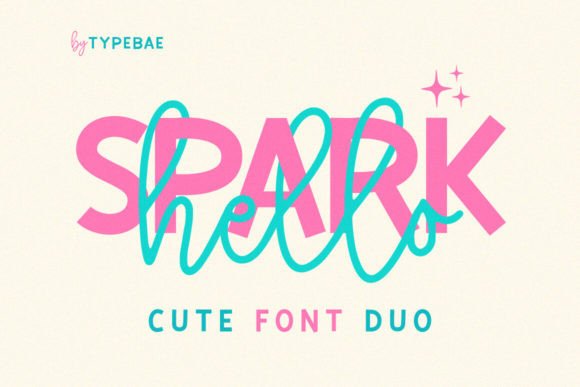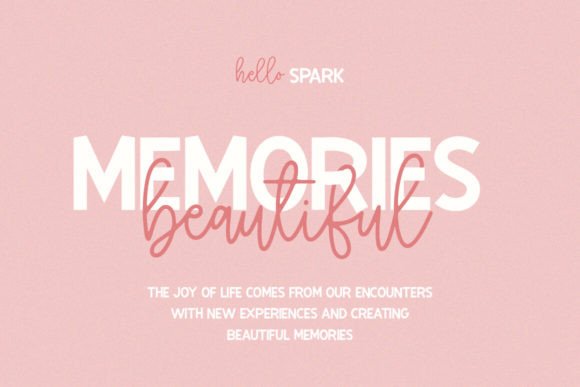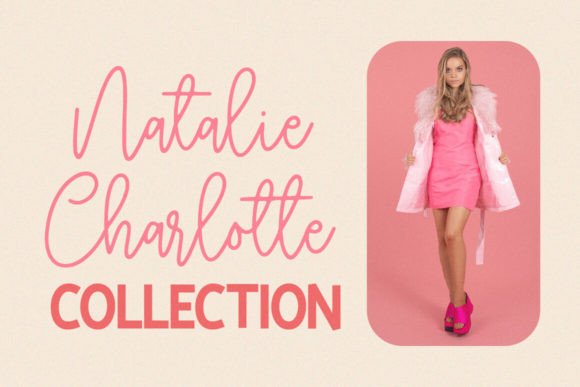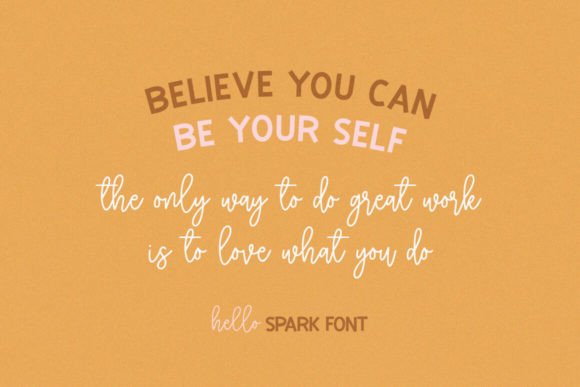
Hello Spark Duo Font
About the Hello Spark Duo Font
Introducing the Hello Spark Duo Font, a beautifully crafted typeface designed to elevate your creative projects. Introducing Hello Spark, the perfect blend of cute script and sans-serif fonts! With its charming and playful appeal, this duo is ideal for a wide range of creative projects. Whether it’s books, greeting cards, posters, clothing, or picture books, this font brings joy and happiness to your designs.
Hello Spark Duo’s playful script shines in headlines, short bursts of text on packaging, and social media graphics. It’s less suitable for body copy or UI elements due to its low x-height and decorative nature; readability suffers in extended text.
The font’s overall personality is cheerful and youthful. It works exceptionally well for brands targeting a young, female demographic or projects with a whimsical, handcrafted aesthetic – think children’s books, stationery, or sweet treat branding.
Consider pairing the script with a clean sans-serif like Open Sans for contrast and readability, or a geometric sans-serif like Futura for a more modern, sophisticated feel. A subtle serif like Lora could also add a touch of elegance while maintaining a friendly balance.